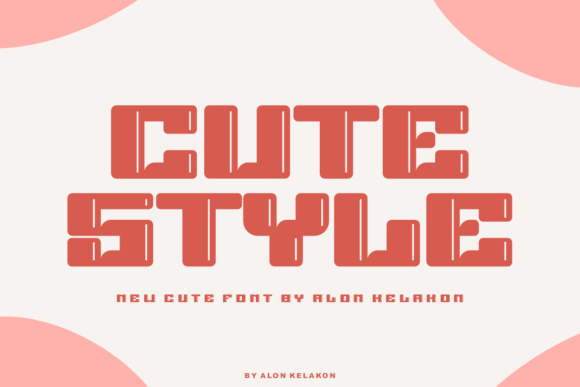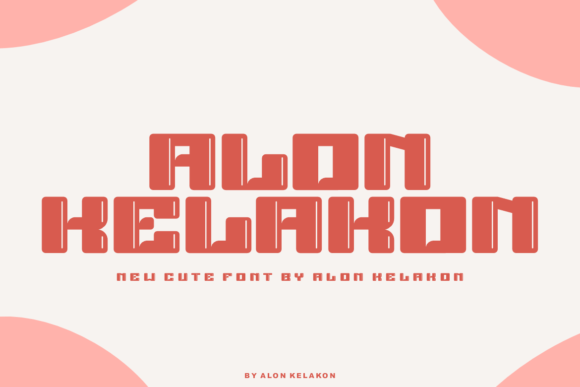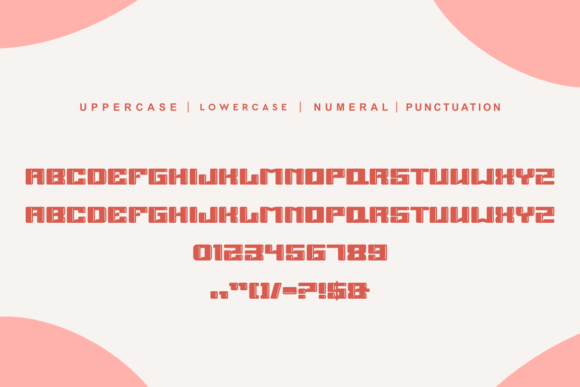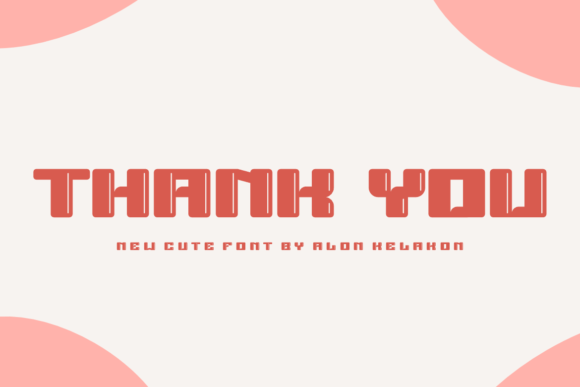
Cute Fancy Fonts: Elevate Your Designs with Unique Typography
Are you a designer, crafter, or DIY enthusiast looking to add a touch of personality to your projects? Look no further than cute fancy fonts! These unique and creative typography styles can instantly elevate your designs, making them stand out from the crowd. In this article, we’ll explore the world of cute fancy fonts, their uses, and how you can incorporate them into your designs.
What are Cute Fancy Fonts?
Cute fancy fonts are a type of typography that is designed to be visually appealing, creative, and often whimsical. They can range from elegant and sophisticated to playful and quirky, making them perfect for a wide range of design projects. These fonts can be used for various purposes, such as labeling, clothing, movie screens, posters, movie titles, gigs, album covers, logos, and much more.
The Benefits of Using Cute Fancy Fonts
Using cute fancy fonts in your designs can have several benefits. Here are a few:
- Unique and eye-catching: Cute fancy fonts can help your designs stand out from the crowd, making them more noticeable and engaging.
- Creative expression: With a wide range of styles and designs to choose from, cute fancy fonts allow you to express your creativity and add a personal touch to your projects.
- Versatility: Cute fancy fonts can be used for various design projects, from digital to print, and can be adapted to suit different styles and themes.
Uses of Cute Fancy Fonts
Cute fancy fonts can be used in a variety of design projects, including:
- Labeling: Add a touch of personality to your labels, making them more visually appealing and engaging.
- Clothing: Create custom clothing designs, such as t-shirts, hoodies, and hats, with cute fancy fonts that make a statement.
- Movie screens and posters: Use cute fancy fonts to create eye-catching movie titles, posters, and screenplays that grab attention.
- Album covers: Design unique and creative album covers with cute fancy fonts that reflect the music and style of the artist.
- Logos: Create custom logos with cute fancy fonts that represent your brand and help you stand out from the competition.
Tips for Using Cute Fancy Fonts
Here are some tips for using cute fancy fonts in your designs:
- Choose a font that fits your theme: Select a font that matches the style and theme of your design project.
- Experiment with different styles: Try out different font styles, sizes, and colors to find the perfect combination for your design.
- Keep it readable: Ensure that your font is readable, even at smaller sizes, to avoid overwhelming your design.
Cute fancy fonts are a great way to add a touch of personality and creativity to your design projects. With their unique and eye-catching styles, they can help you stand out from the crowd and make your designs more engaging. Whether you’re a designer, crafter, or DIY enthusiast, cute fancy fonts are a must-have in your design toolkit. So, go ahead and explore the world of cute fancy fonts, and get ready to elevate your designs to the next level!